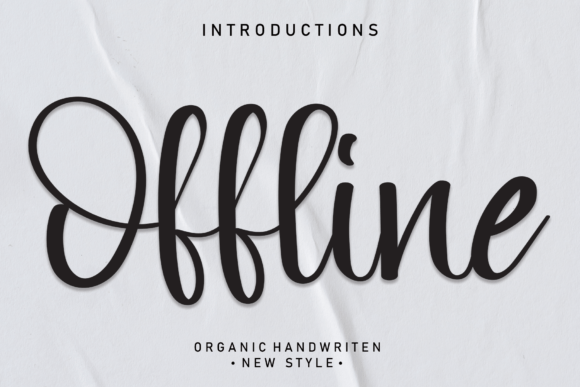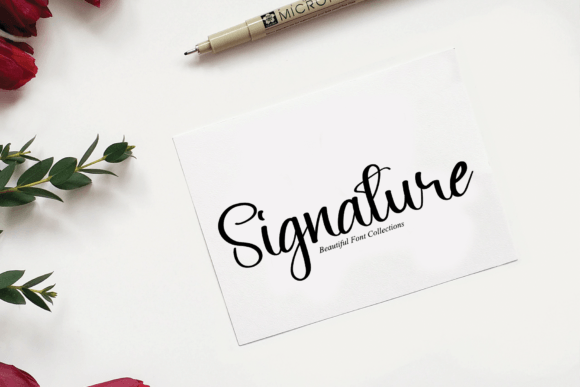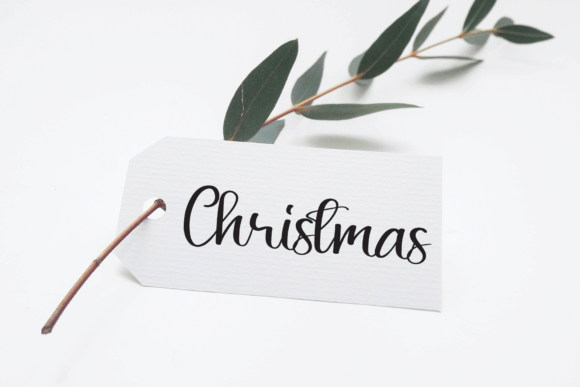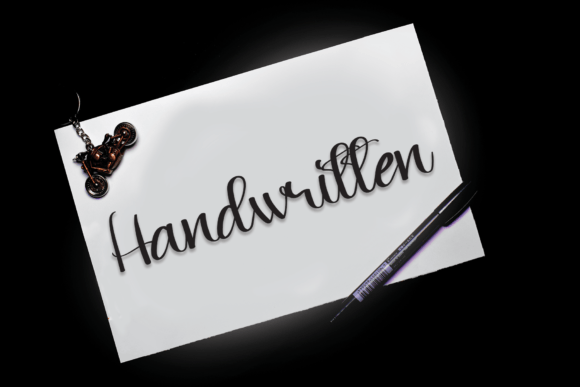
Offline Font
Offline Handwritten Font – Fun and Friendly Typeface
The Offline Handwritten Font is a cheerful and versatile typeface designed to add charm and warmth to your creative projects. With its natural handwritten strokes and playful flow, it works well in both personal and professional contexts. Whether you are creating greeting cards, digital graphics, or presentations, this font makes your work feel unique and inviting.
A Handwritten Script with Style
The Offline Handwritten Font combines casual handwritten strokes with neat spacing and clarity. Its design feels approachable yet modern, making it a great fit for everyday use. Because of this, it adapts easily to digital design, social media content, and print layouts.
Perfect for Crafts and Greeting Cards
One of the best uses of the Offline Handwritten Font is in handmade projects such as greeting cards, invitations, and thank-you notes. Its friendly curves and natural strokes add personality to personal designs. At the same time, it shines in posters and DIY projects where a handwritten touch creates authenticity.
The Offline Handwritten Font adapts beautifully to different applications. From branding and product packaging to social media graphics and website headers, it adds a casual handwritten charm. Its friendly and modern look ensures it fits both playful and professional design needs.
Why Designers Love Offline Font
Designers appreciate the Offline Handwritten Font because it blends usability with creativity. Its clear handwritten style makes it suitable for professional branding, while its casual flow adds warmth to personal projects. This balance makes it a reliable choice for many creatives.